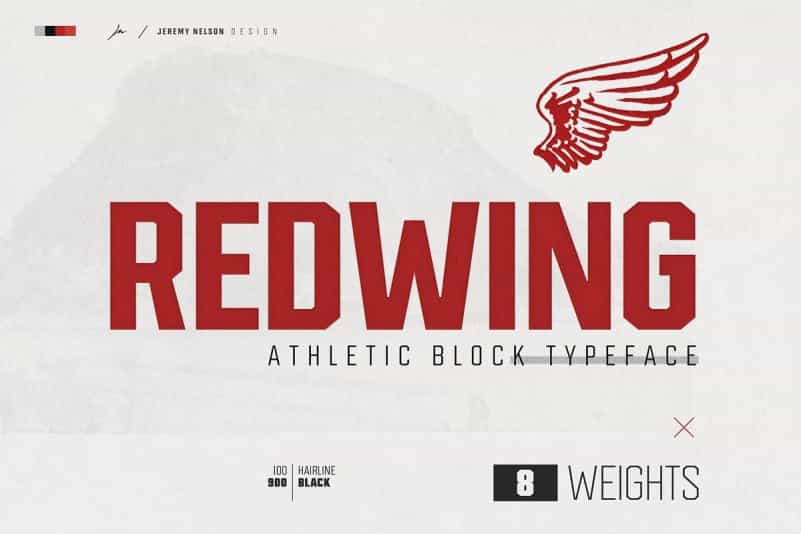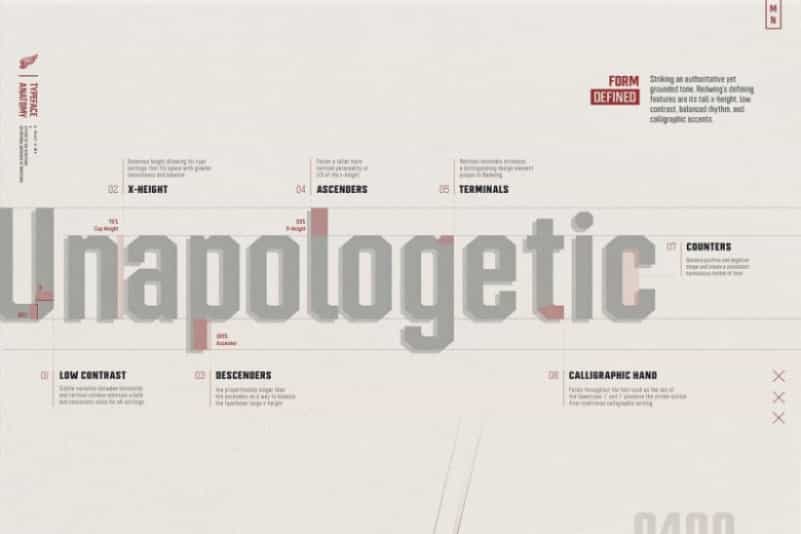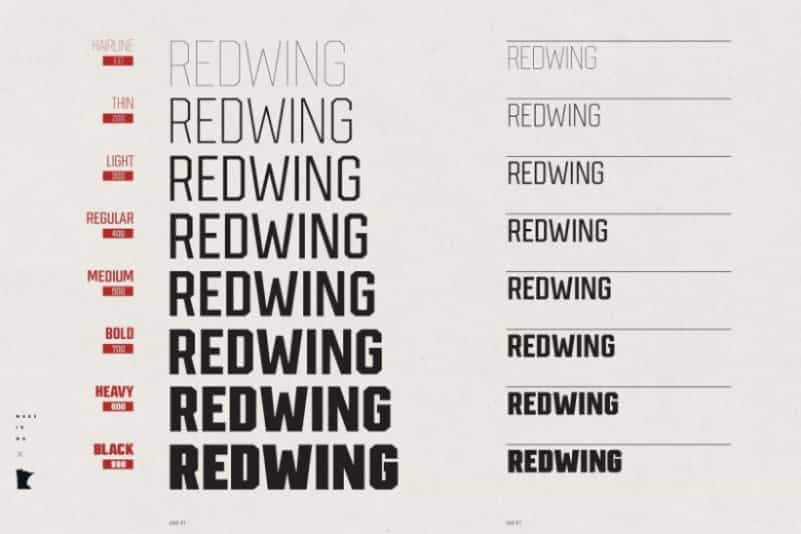
Redwing Display Font
The Redwing Font is an impressive display typeface which provides a strong and memorable typography for the use in digital and print, like headlines for posters or packaging logos.